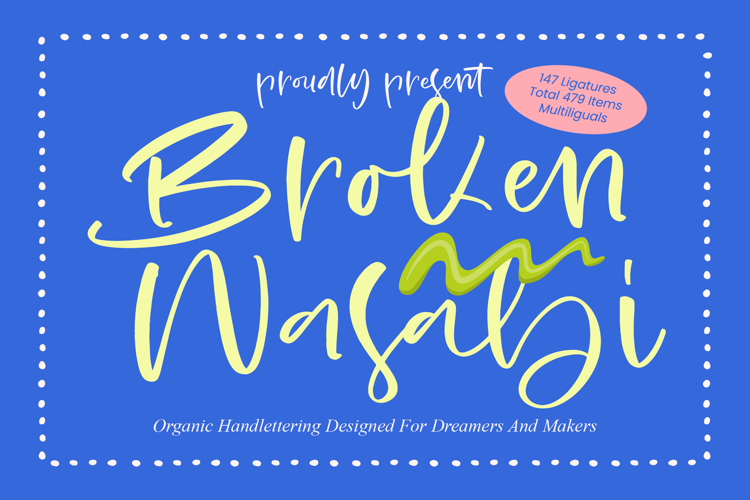
Broken Wasabi - Organic Handlettering
Broken Wasabi is a whimsical journey through organic curves and hand-drawn charm, meticulously crafted to bring a touch of human warmth to every digital canvas. It serves as a soulful invitation for creators to infuse their work with an effortless, artistic flair that speaks directly to the heart of the viewer.
Inspired by the fluid motion of ink on textured paper, this font captures the essence of spontaneous creativity and the beauty of imperfection. It evokes the atmosphere of a sun-drenched studio where ideas flow as freely as the strokes that define this unique, character-rich typeface.